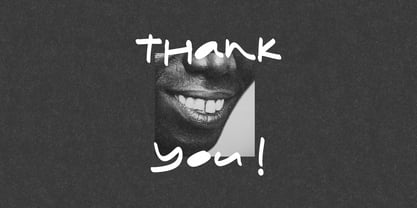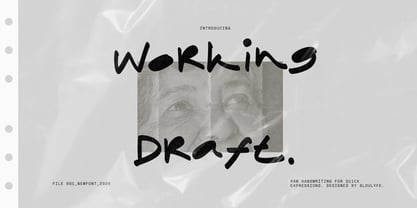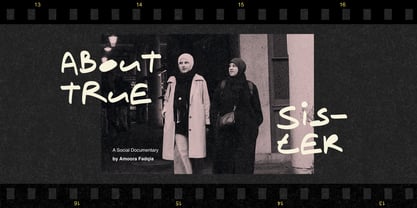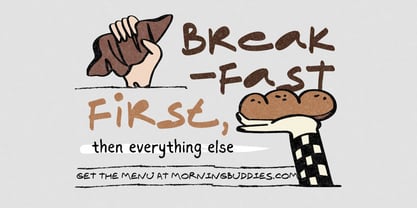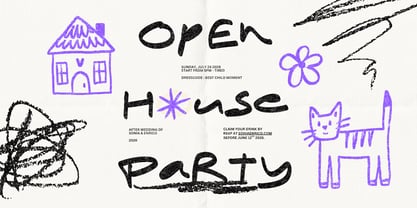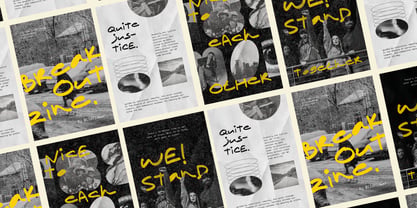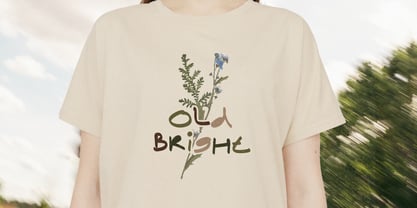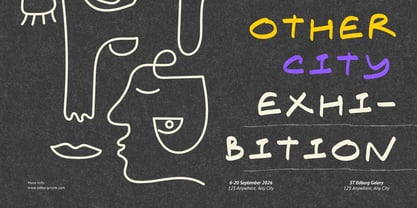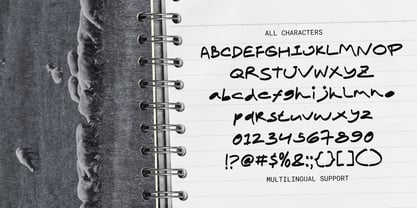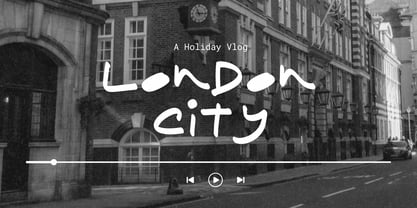
Working Draft
von Sloulyfe Studio
Die Schriftfamilie Working Draft wurde von Amelia Dian Isnaini entworfen und von Sloulyfe Studio veröffentlicht. Working Draft enthält 2 Stile und Familienpaketoptionen. Mehr über diese Familie
Working Draft feels like a marker grabbed in a rush and magic just happened. The strokes are thick, slightly uneven, and textured like real ink on paper—raw, quick, and honest. Every letter looks handwritten in the moment, giving your words that spontaneous, notebook-scribble energy. It’s bold without being polished, expressive without being perfect. Features :Uppercase & lowercase, Numbers and punctuation, Multilingual support & PUA encoded
Designer: Amelia Dian Isnaini
Foundry: Sloulyfe Studio